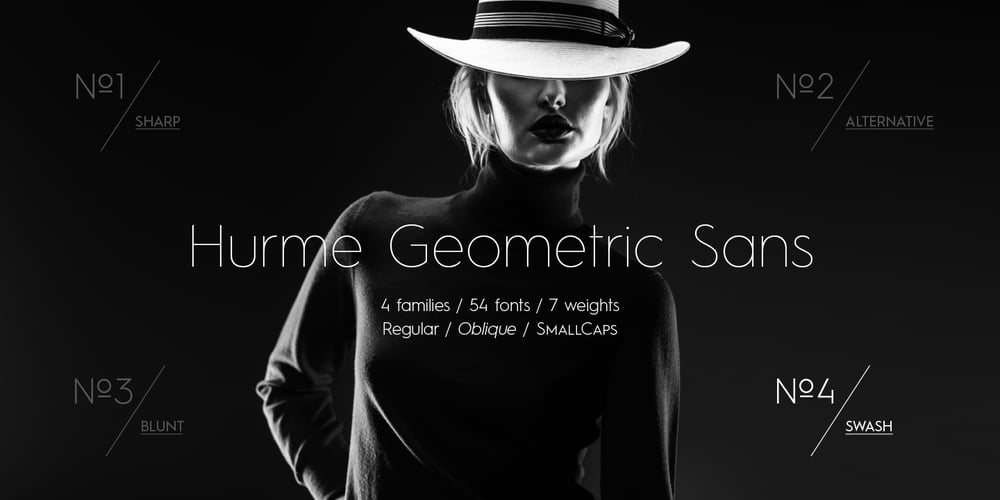
Hurme Geometric Sans No. 4 Font Family was designed by Toni Hurme and published by Hurme. Hurme Geometric Sans No. 4 contains 14 styles and family package options. Hurme Geometric Sans No.4 includes seven weights with true Small Caps, obliques and swash alternates. Uppercase swash alternates can be automatically applied to all characters or just to first and last characters of each word. Please see the specimen PDF for complete overview of the typeface and its features. Alternate characters and other Opentype features make for a versatile family that can be adjusted for specific needs. Hurme Geometric Sans is a series of font families all with distinctive qualities and features but share the same basic construction and proportions. See also the other Hurme Geometric Sans families.